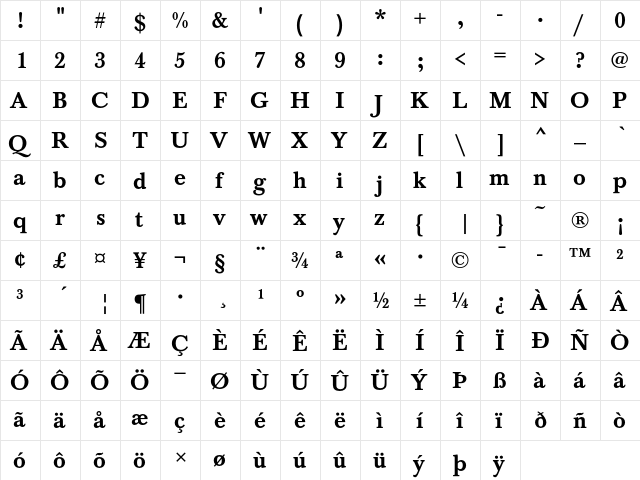
Baskerville T Medium
Design Context for Baskerville T Typeface
Baskerville T is a composed and adaptable typeface that performs quietly and consistently across a wide range of design contexts.
Pro Tip: Pair Baskerville T with a font of contrasting weight or personality to build a more expressive typographic hierarchy.